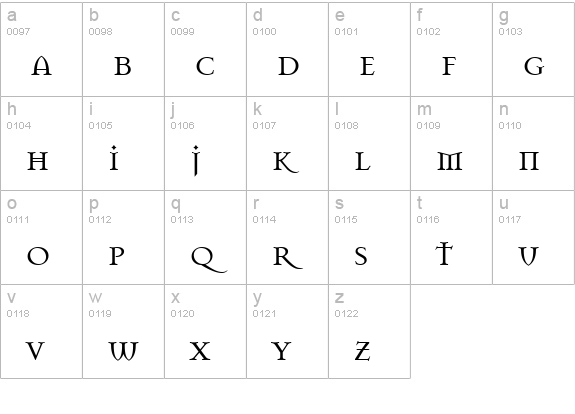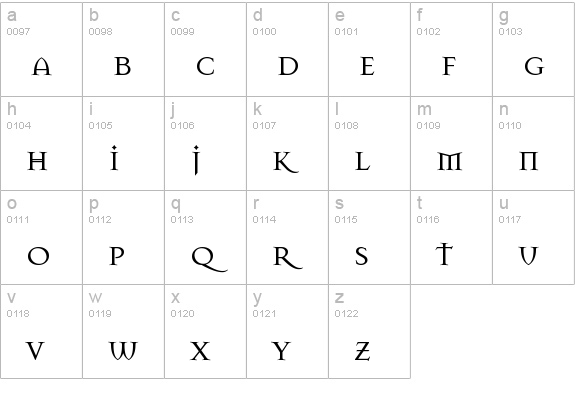
Mason Regular Font Details
Mason Regular is the standard, neutral variant in the Mason typeface family \xE2\x80\x94 well suited to general body text, paragraphs, and standard typographic work.
Mason Regular font is a modern and stylish typeface that exudes sophistication and elegance. With its clean lines and balanced proportions, it is perfect for a variety of design projects, including branding, logo design, and advertising. This versatile font offers a contemporary twist on classic letterforms, making it suitable for both digital and print applications. Its readability and legibility make it an ideal choice for body text, while its subtle details and unique character make it stand out in headlines and headings. One of the best aspects of Mason Regular font is that it is freely available to download at FontsMarket.com. This means that you can easily access this high-quality font without any cost. Whether you are a professional designer or a hobbyist, this font provides a valuable resource to enhance your creative projects. With its extensive character set, Mason Regular font supports multiple languages, making it a versatile option for global design projects. Its wide range of weights and styles, including bold and italic variations, offers endless possibilities for creating visually stunning designs. In addition to its aesthetic appeal, Mason Regular font is also highly functional. Its well-defined letterforms ensure optimal legibility across different screen sizes and resolutions, making it suitable for websites and mobile applications. Furthermore, its meticulous kerning and spacing contribute to a polished and professional appearance. Overall, Mason Regular font is a must-have for any designer looking to add a touch of sophistication and style to their projects. Its combination of elegance, versatility, and accessibility makes it a valuable asset. Don't miss the opportunity to download this exceptional font for free at FontsMarket.com and elevate your designs to new heights.